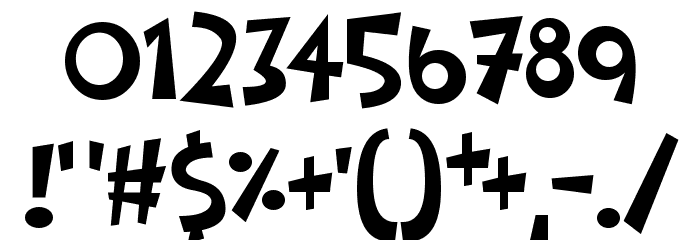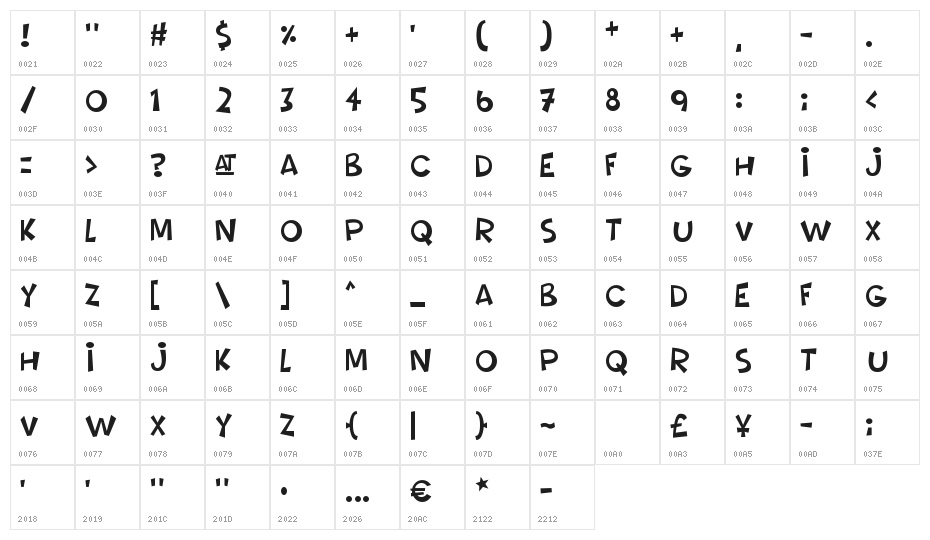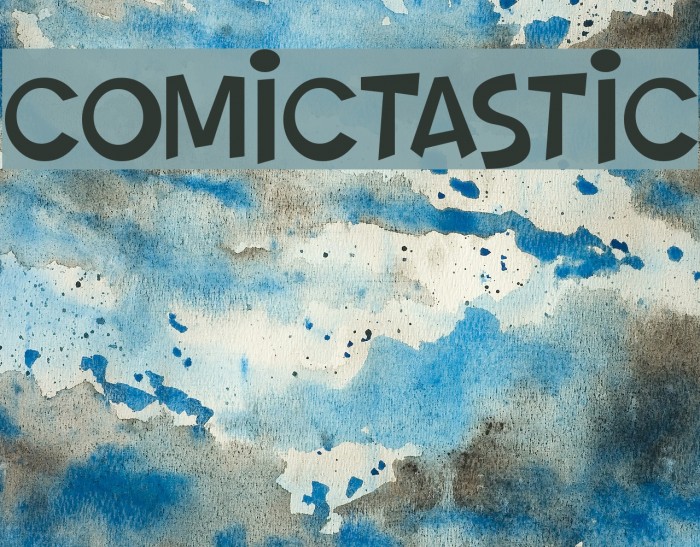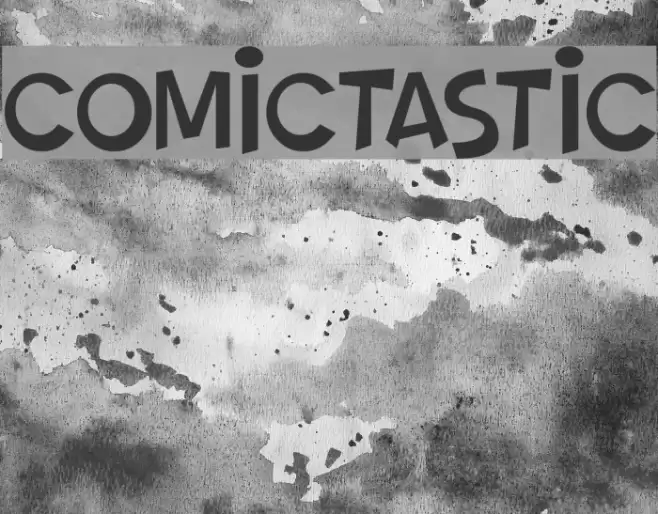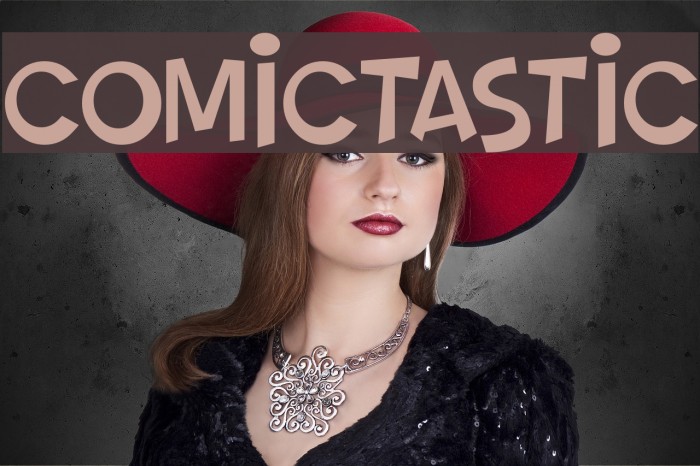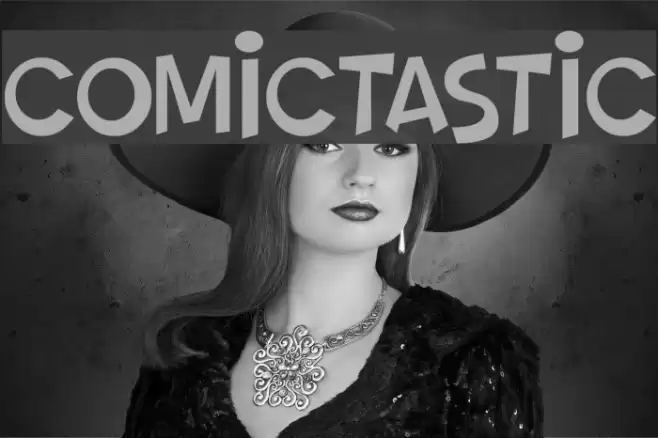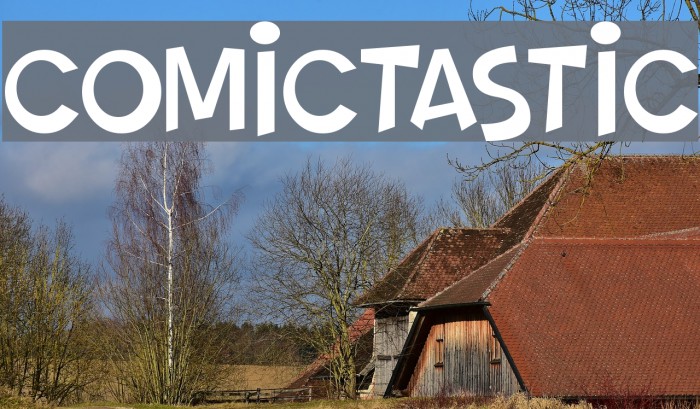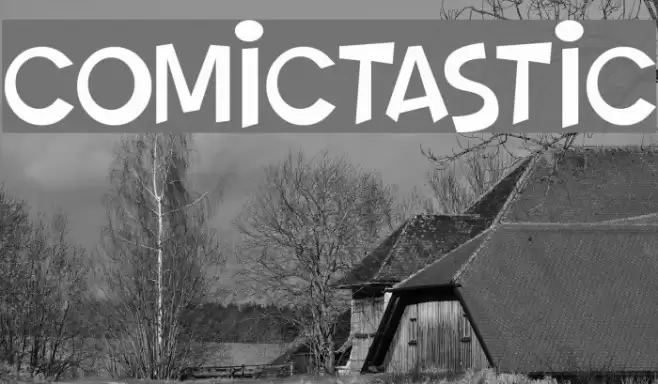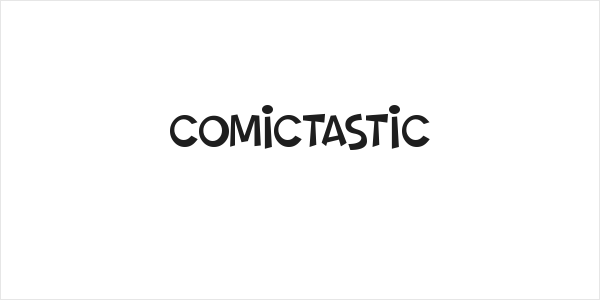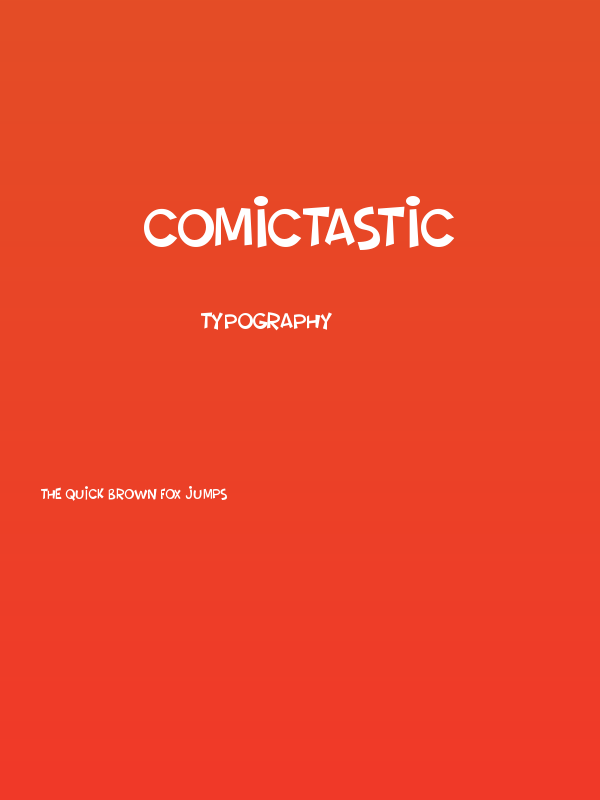
Comictastic Font
Comictastic Description
This playful and energetic font features bold, exaggerated characters with a comic book flair. The letters are slightly irregular, giving them a hand-drawn appearance that adds a sense of fun and whimsy. The uppercase and lowercase letters maintain a consistent style, with rounded edges and a slight tilt that enhances the dynamic feel. Numbers and special characters are equally bold and expressive, making this font ideal for creative projects. The overall design is both eye-catching and approachable, perfect for capturing attention in a lighthearted context.
| Overall Style | Playful, Comic |
| Proposed Projects | Ideal for comic books, children's books, playful branding, and posters. |